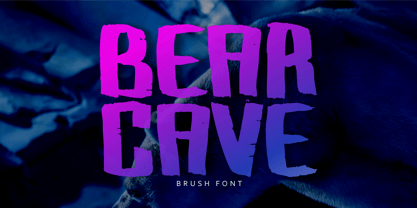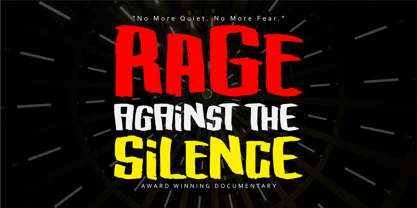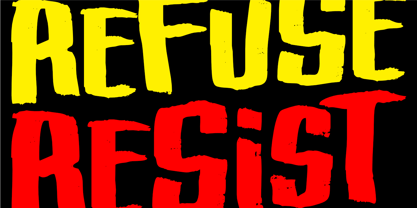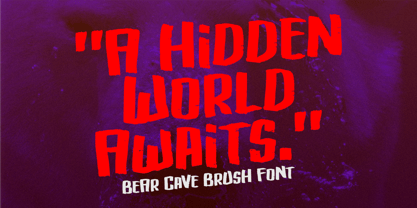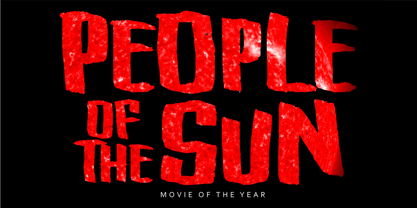
Bear Cave
The Bear Cave Font Family was designed by Nurul Hidayani and published by Olivetype. Bear Cave contains 1 styles.
Bear Cave – A Bold & Wild Brush Font for Adventurous Designs
Unleash the raw energy of Bear Cave, a cool and rugged brush font designed to bring boldness and personality to your projects. With its handcrafted brush strokes and organic texture, this bold font delivers a powerful, adventurous feel—perfect for those who want to make a statement.
Whether you're working on logo design, branding, t-shirts, posters, or social media graphics, Bear Cave is the ultimate adventure font that commands attention. Its handmade brush script style gives it an authentic, handwritten font look, making it ideal for modern calligraphy, sports branding, and adventure themes.
Bear Cave is not just a wild font—it's a versatile and high-quality typeface that works great for logos, creative fonts, and merchandise designs. With multilingual support, this font speaks to diverse audiences worldwide, making it perfect for print and digital use, including album covers, YouTube thumbnails, and apparel.